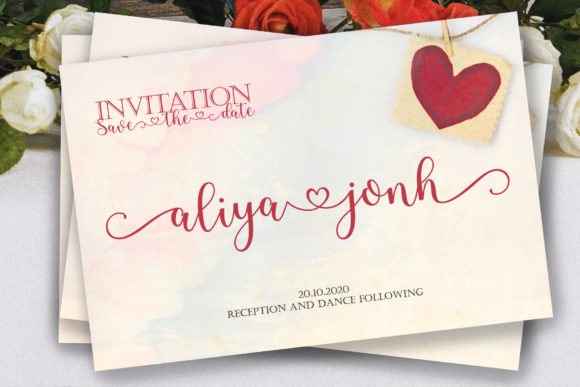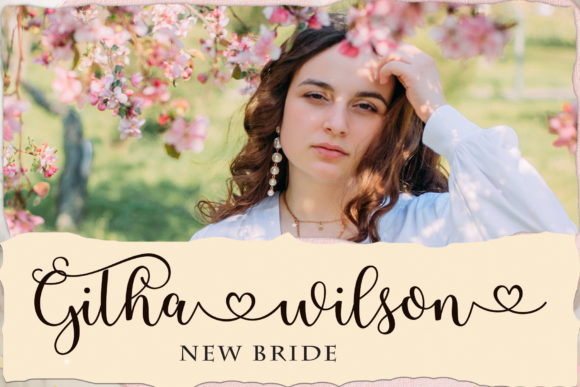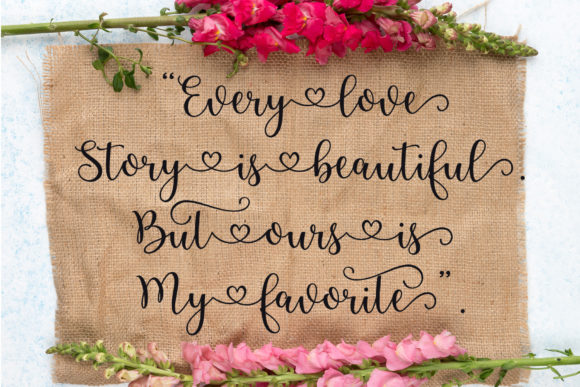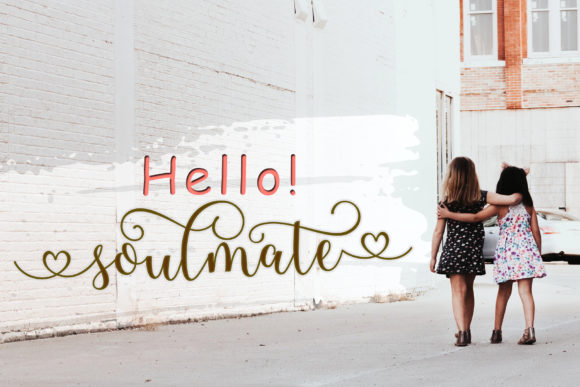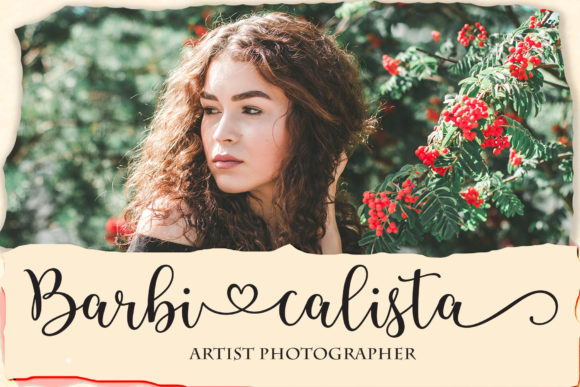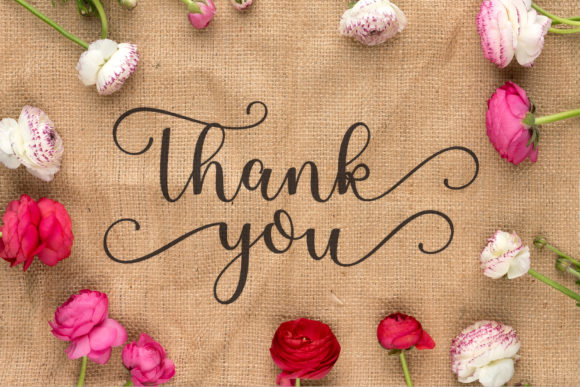
Introduction to Mitha Silva Font
Have you ever found yourself stuck in a creative rut, scrolling through font options for hours, searching for that perfect match? You know, the one that elevates your design from good to great? For designers, finding the right font can be a game-changer, and today we’re excited to share with you a hidden gem that’s sure to inspire your next project.
Meet Mitha Silva Font, a stunning script font that exudes elegance and sophistication. Whether you’re working on a personal project or a professional design, this font is the perfect addition to your design resource arsenal. With its beautiful, flowing lines and high-quality design, Mitha Silva Font is sure to add a touch of magic to any creative project.
Key Features of Mitha Silva Font
- High-quality design resource ideal for creative projects, including posters, flyers, and brochures
- Unique, elegant script font with a transparent background, perfect for adding a touch of sophistication to any design
- Includes a wide range of characters, including uppercase and lowercase letters, numbers, and punctuation marks
- Resolution-independent, ensuring crisp and clear text output at any size or resolution
- Perfect for designers and artists looking for a high-quality, unique font to enhance their creative projects
Honest Review: Mitha Silva Font
The font itself boasts a beautiful, elegant design with a transparent background, making it perfect for various applications, from headings to body text. The clean lines and sophisticated look of the Mitha Silva Font make it a great addition to any design project.
- High-quality design with a transparent background
- Sophisticated look that’s perfect for creative projects
- Only available in a limited number of font weights and styles
- Not suitable for projects that require a bold, playful font
- Some users may find the font too elegant, lacking a bit of personality
Overall, I’m impressed with the Mitha Silva Font. It’s a great design resource for those looking for a high-quality, elegant font with a transparent background. While it may not be perfect for every project, it’s definitely worth considering for creative projects that require a sophisticated look.
Tips for Getting the Most Out of Mitha Silva Font
Use the Mitha Silva Font with a transparent background to create a beautiful and high-quality design. This font is ideal for creative projects such as posters, flyers, and brochures.
The Mitha Silva Font is commonly used in design projects that require a unique and creative touch. This font is ideal for designers who want to add a personal touch to their designs. It can be used in a variety of design resources, including logos, branding materials, and marketing materials.